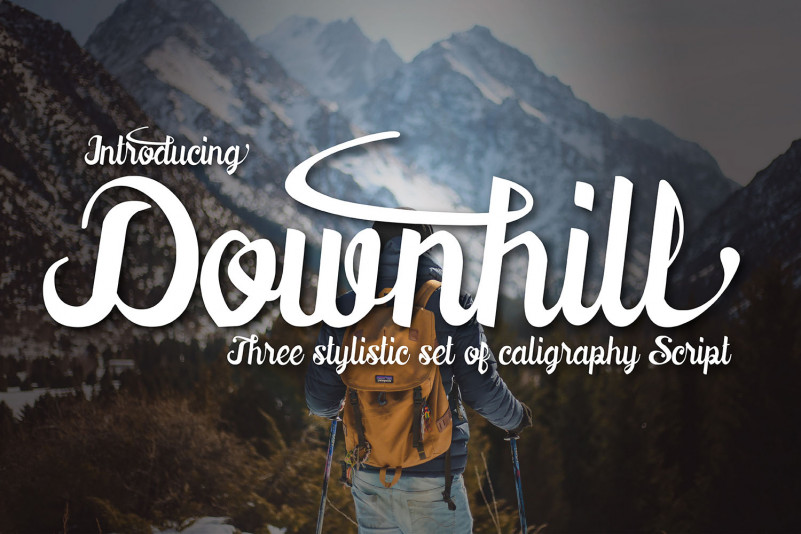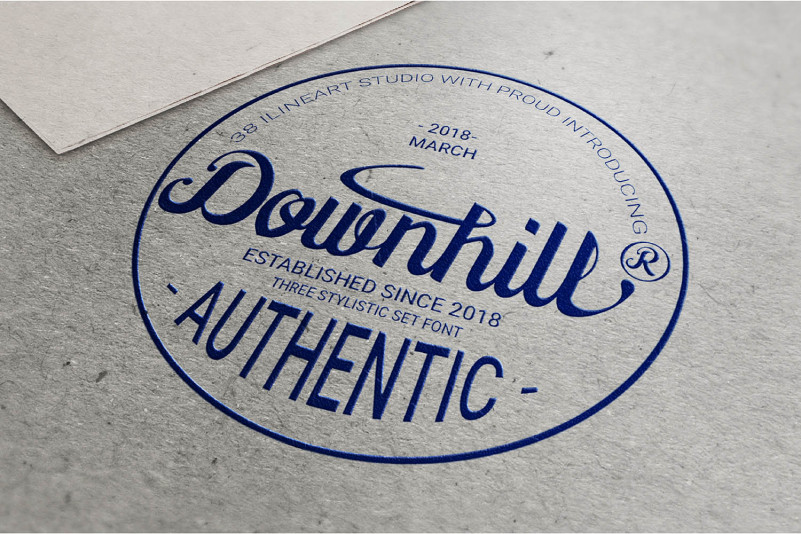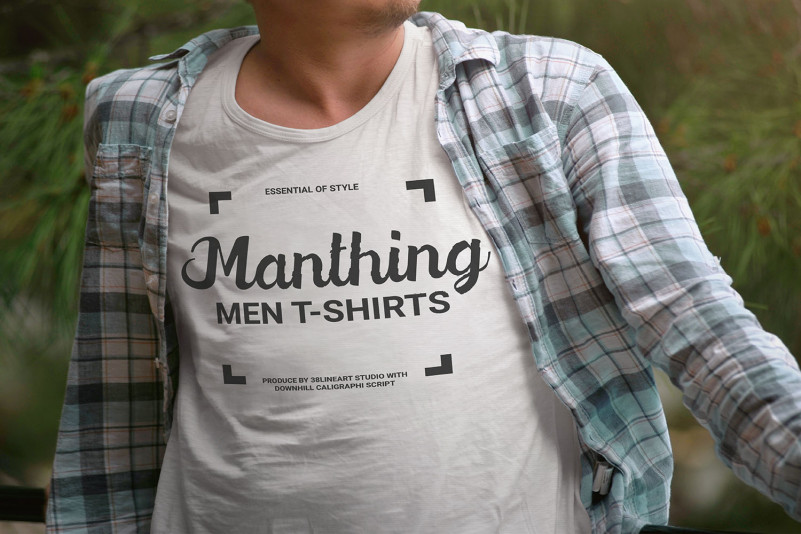
Downhill Calligraphy Font
Downhill is a stunning painterly calligraphy font, crisp and designed in a modern way that is sensible for displays and headlines. This font has a highly brandable appeal and can work in logotype and merchandise.